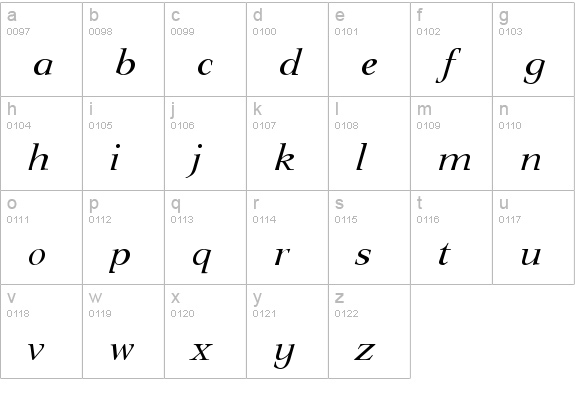
LingwoodEF-RegularItalic Font Details
LingwoodEF-RegularItalic font is a graceful and elegant typeface that adds a touch of sophistication to any design project. With its slanted italic style, this font exudes a sense of creativity and flair. Whether you're looking to enhance your branding materials, create eye-catching headlines, or add a unique touch to your website, LingwoodEF-RegularItalic is the perfect choice. Best of all, this versatile font is completely free to download at FontsMarket.com. You can easily access this font and incorporate it into your creative projects without any cost. Don't miss out on the opportunity to elevate your designs with the timeless charm of LingwoodEF-RegularItalic font. Download it now and let your creativity shine!